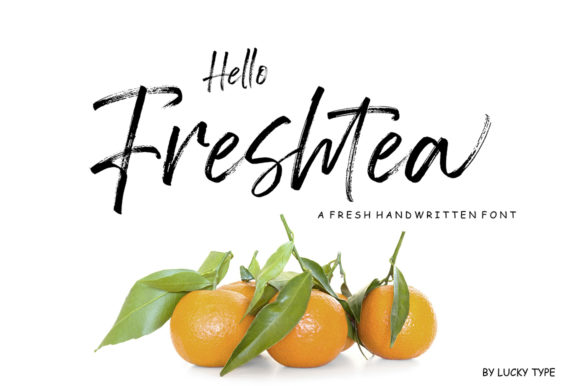
Unleash your creative spirit with Hello Freshtea, the captivating script font family that oozes contemporary charm and vibrant energy. This extraordinary typeface, meticulously crafted by the talented artisans at luckytype.font, is designed to leave an unforgettable impression on your audience.
Step into a world of limitless possibilities with Hello Freshtea. Its playful and dynamic nature makes it the perfect choice for adding a touch of whimsy and vitality to your projects. Whether you're creating eye-catching logos, handwritten notes, captivating social media posts, or stunning invitations, this font will elevate your designs to new heights.
Hello Freshtea effortlessly combines timeless elegance with a modern twist, making it suitable for a wide range of applications. Its flowing lines and carefully crafted curves create a visually appealing aesthetic that is sure to turn heads. Let your imagination soar as you explore the endless possibilities that this remarkable font family has to offer.
Immerse yourself in the vibrant personality of Hello Freshtea. Its distinctive character shines through in every letter, capturing the attention of your audience and leaving a lasting impact. Say goodbye to ordinary and embrace the extraordinary with this captivating font that will revolutionize your creative endeavors.